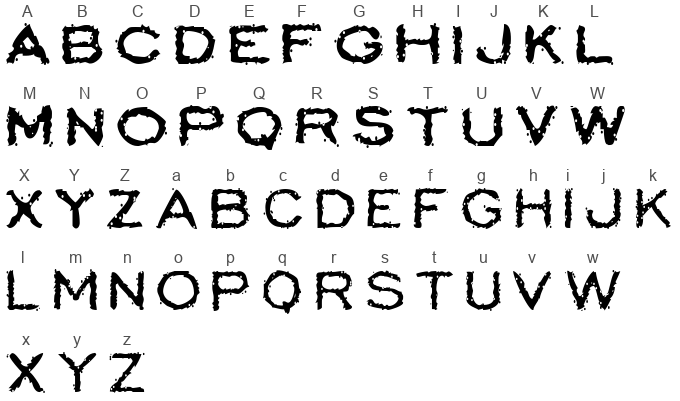
Ah, Scatterbrained Restrained by StimulEye Fonts — a name that sounds like what happens when a caffeine-addicted squirrel tries its hand at typography. This font is the charming eccentric of the font family; it's what happens when your quirky uncle gets ahold of a pen and decides to rewrite the dictionary in his own style.
Scatterbrained Restrained is like a dance between precision and chaos. Each letter feels like it barely escaped a wild party in the font factory, where Serif and Sans-Serif had a bit too much to drink. The letters teeter on the edge of being completely unruly, but there's an unexpected order to them, like someone organized a rave but decided to hold it in a library.
The font carries a delightful contradiction within its design, bringing a sense of whimsy to otherwise mundane texts. It's perfect for when you want to whisper and shout in the same sentence, making it a favorite among designers who have messages that need to be both seen and felt on a spiritual level.
Using Scatterbrained Restrained is akin to dressing a serious news anchor in polka-dotted socks; it adds that hidden zest that begs for a double-take. It's the typographic equivalent of a wink, ideal for projects that don't take themselves too seriously but still show up in a bespoke suit.
Remember, deploying Scatterbrained Restrained is powerful — it's the silent chuckle in a room full of solemn nodders. So, the next time you need your text to subtly stick its tongue out at its readers, you'll know which font to call.
Scatterbrained Restrained